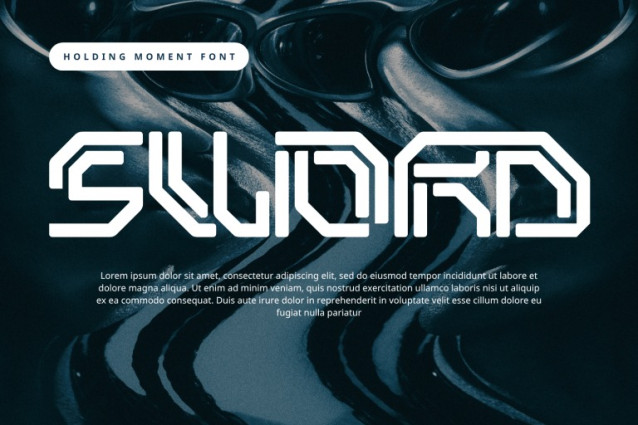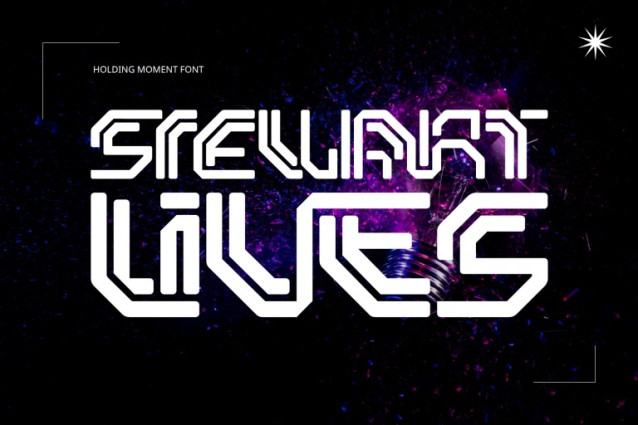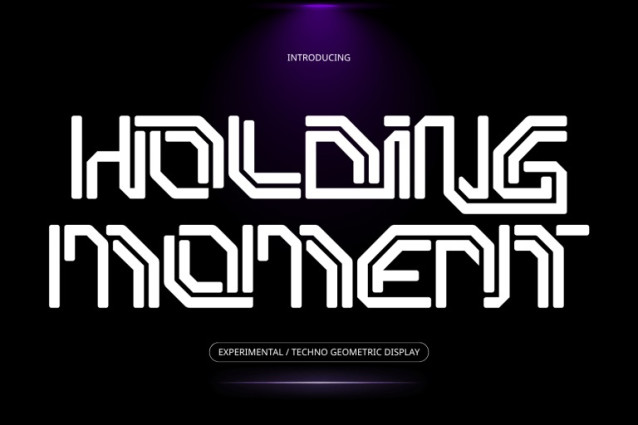
HOLDING MOMENT – TECHNO FONT
HOLDING MOMENT – TECHNO FONT is a futuristic geometric display font designed with a sleek modular structure and a strong technological character. Featuring consistent monoline strokes, rounded corners, and interconnected letterforms, this typeface delivers a clean yet highly distinctive visual identity. Inspired by digital interfaces, circuit patterns, and modern sci-fi aesthetics, HOLDING MOMENT combines geometric precision with innovative design details to create a bold and contemporary look. Its segmented construction and streamlined shapes make every character feel dynamic, technical, and forward-thinking.